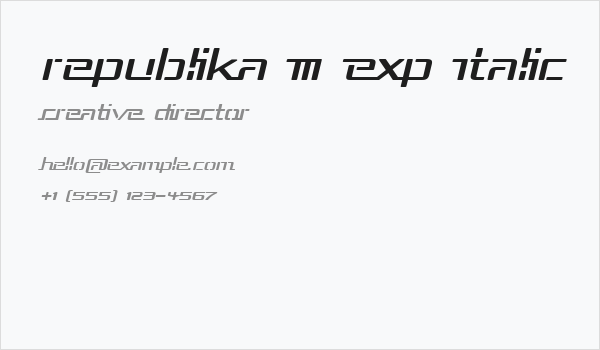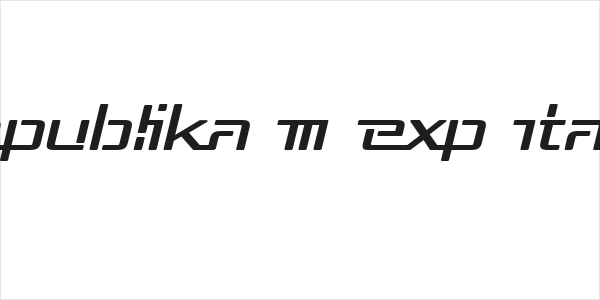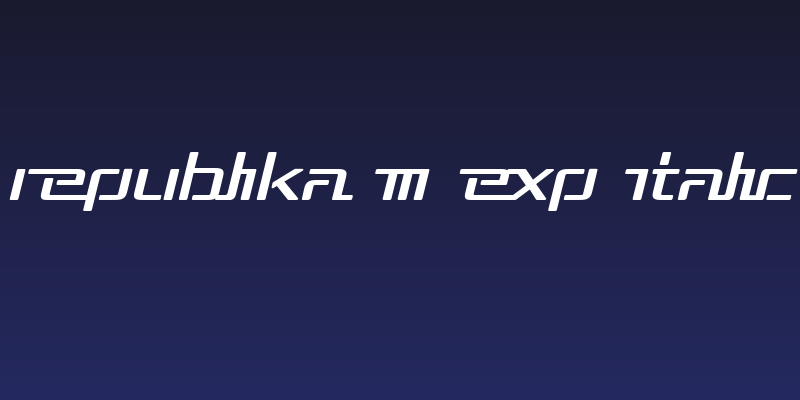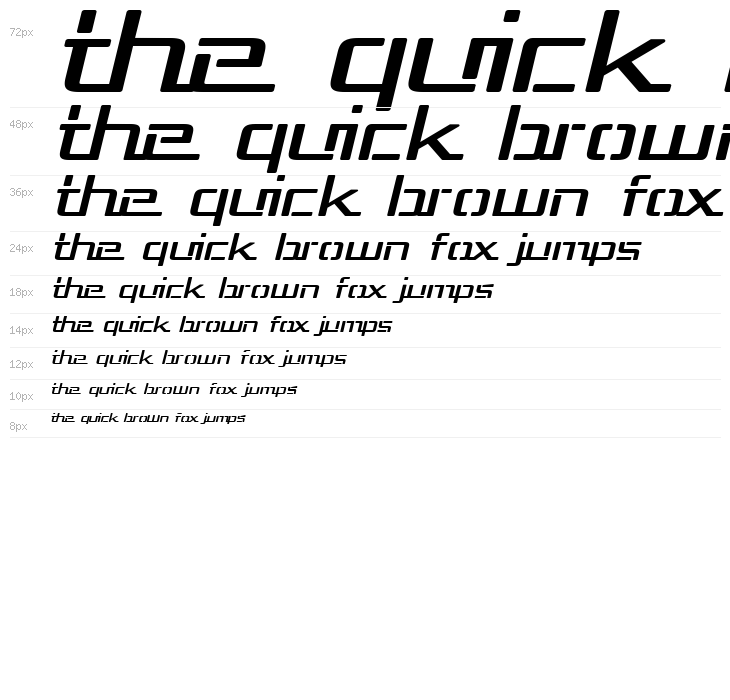
Republika III Exp Italic Font
Republika III Exp Italic Description
This font features a futuristic and dynamic design, characterized by its italicized and expanded letterforms. The characters are sleek and angular, with a distinct forward slant that conveys motion and speed. The strokes are consistent in thickness, providing a uniform appearance across all characters. The font includes both uppercase and lowercase letters, numerals, and a variety of special characters, making it versatile for different applications. Its geometric style is complemented by sharp edges and clean lines, giving it a modern and technical feel.
Use CaseLogos, Headlines
Proposed ProjectsIdeal for technology branding, sports team logos, video game titles, and sci-fi themed designs.